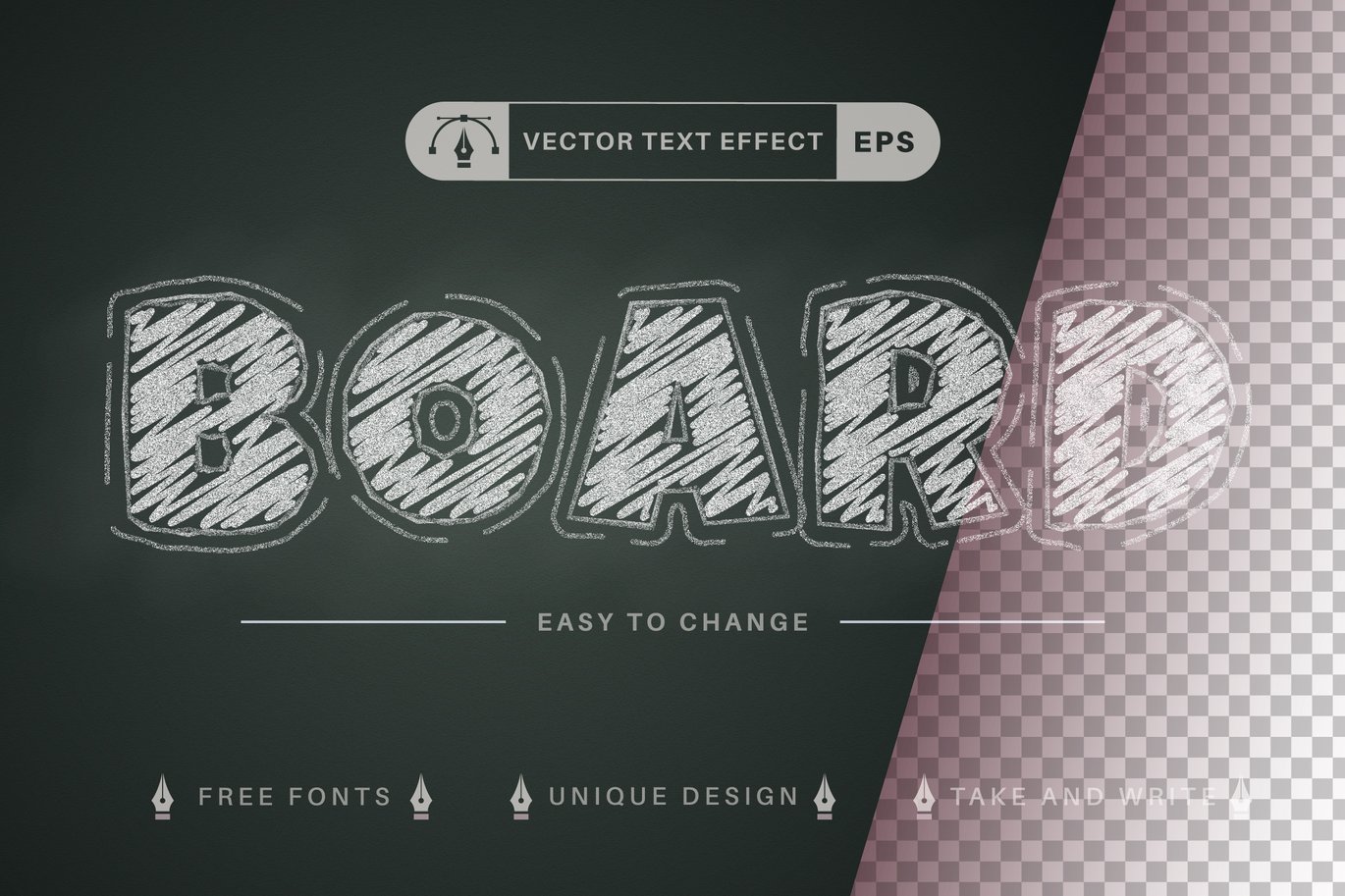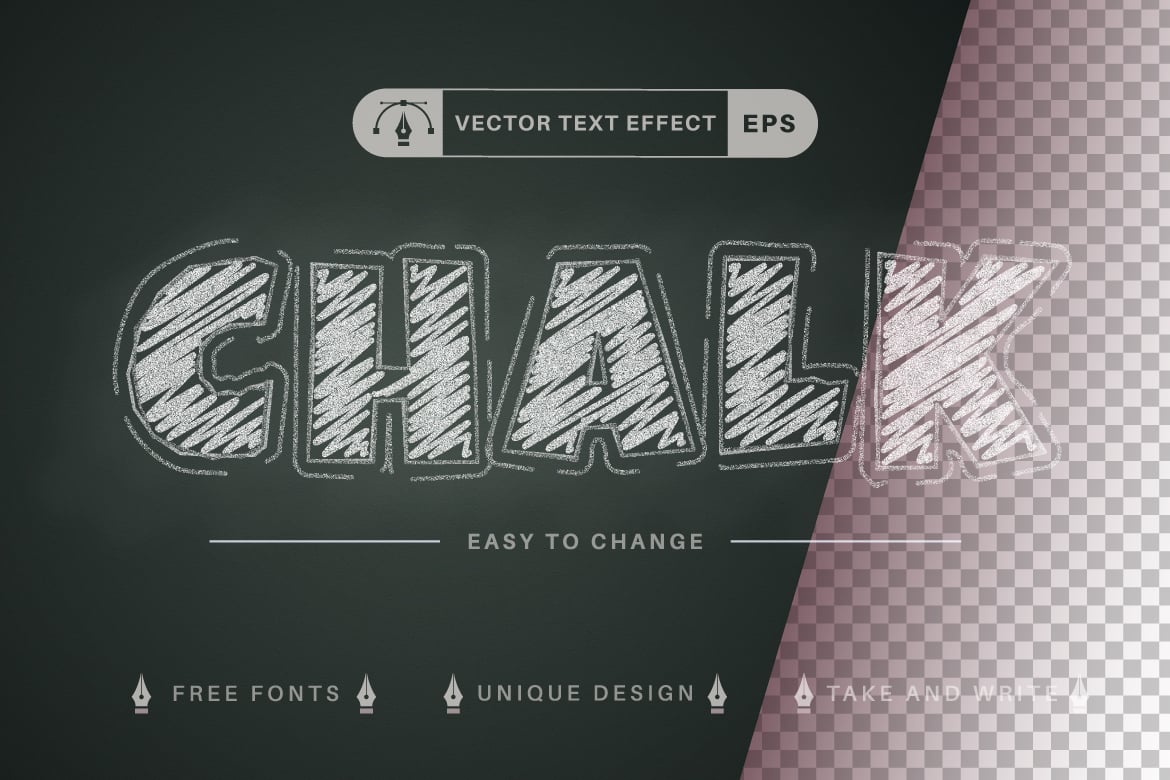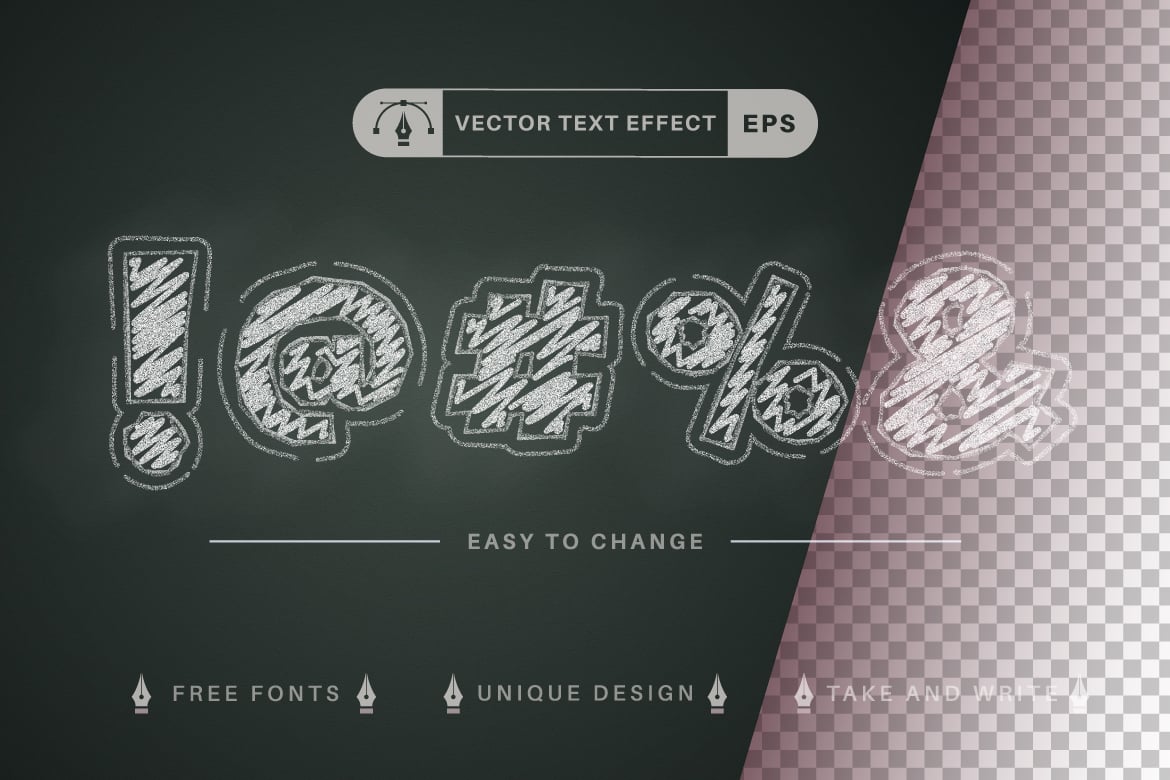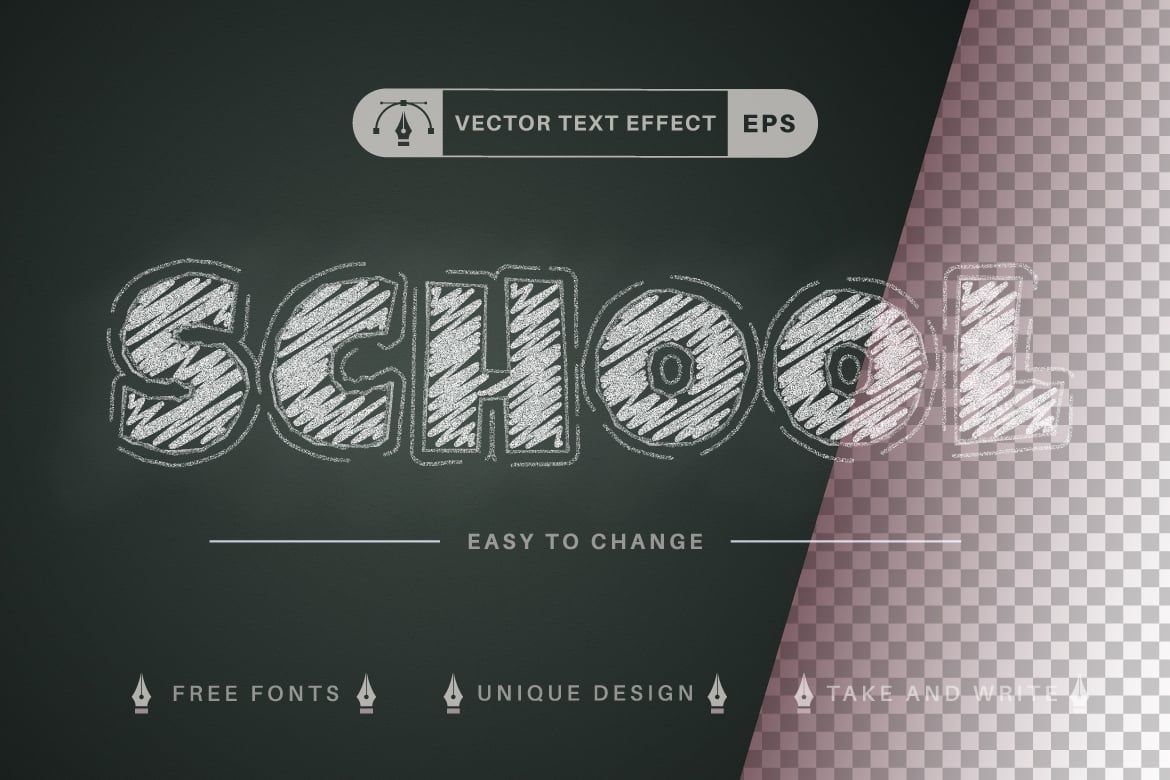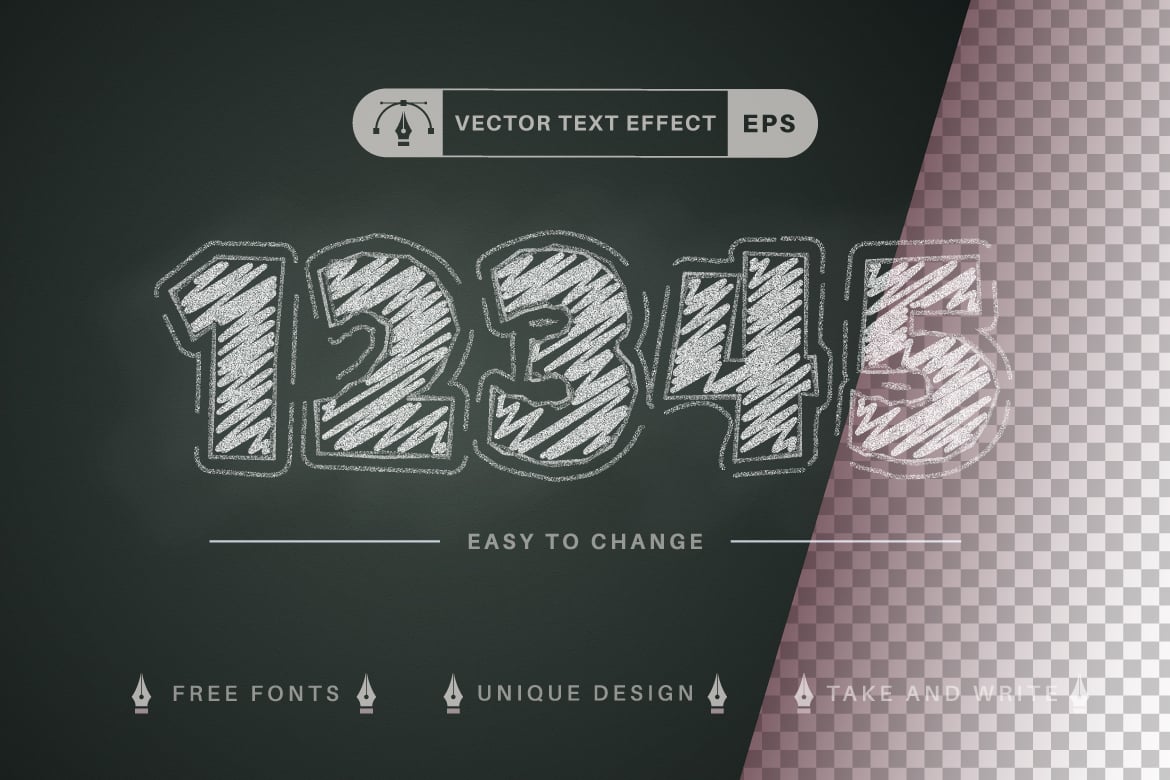
Chalk Hatching – Editable Text Effect, Font Style
I’m glad to introduce my new vector text effect “Chalk Hatching”.
Be as creative as you like to be in expressing yourself using this unique “Chalk Hatching”.
Effect is perfect for any project that needs a unique handy touch whatever else your imagination leads you to!
Use text effect to bring your ideas to life:
- greeting card
- book cover
- scrapbooking
- decorating
- packaging
- and much more!
- Bright and memorable